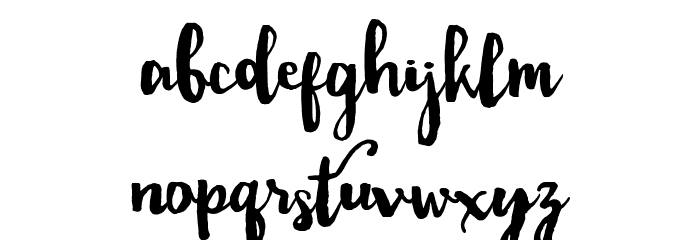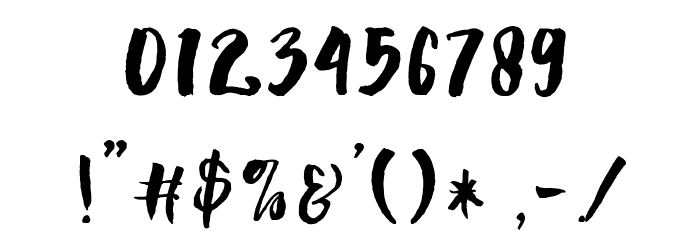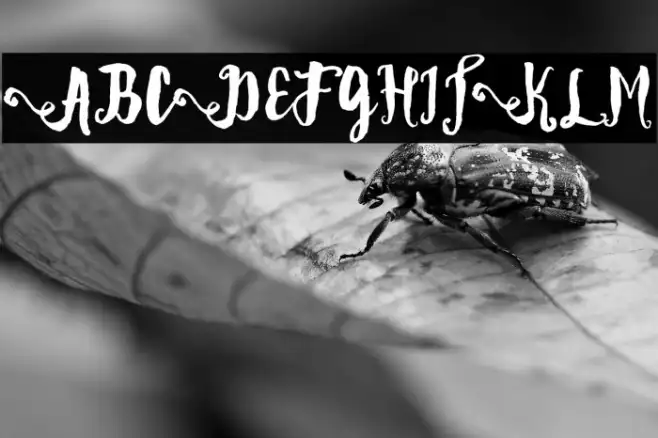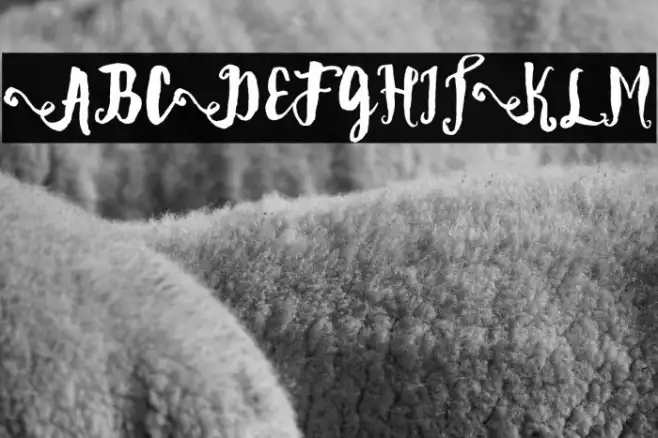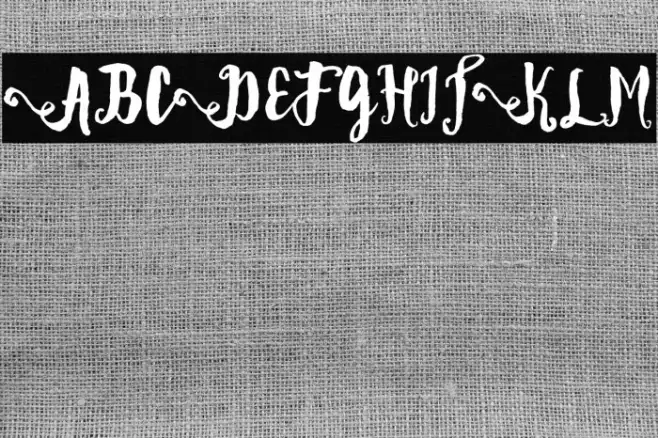
Dality Font
This font features a whimsical and artistic script style with a hand-drawn appearance. The uppercase letters are adorned with elegant swirls and flourishes, giving them a decorative and playful look. The lowercase letters maintain a consistent flow, enhancing the handwritten feel. Numbers and special characters are bold and expressive, matching the overall style of the alphabet. The font's unique character makes it suitable for creative and informal projects, where a touch of personality is desired.
A whimsical, hand-drawn script font with decorative swirls and bold characters.
- Font: Dality
- Proposed Projects: Ideal for wedding invitations, greeting cards, branding, and artistic projects requiring a personal touch.
- Category: Script
- Use Case: Logos, Invitations, Artistic projects